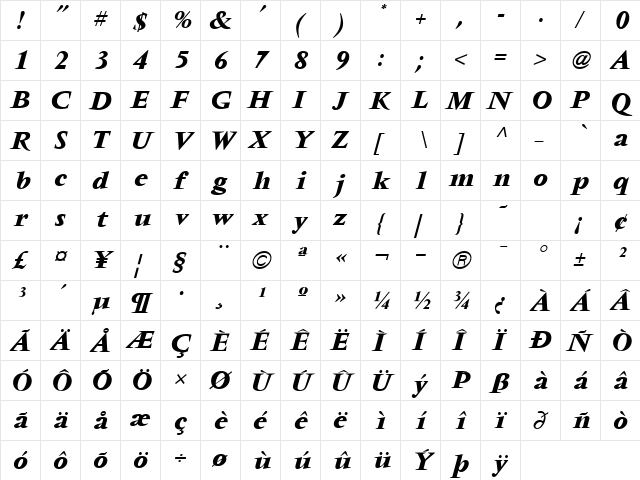
Vendome ICG BoldItalic
Design Context for Vendome ICG Typeface
Vendome ICG offers clean, dependable letterforms without strong stylistic allegiance, making it a practical choice for designers who need flexibility. The slanted form adds forward momentum and visual energy. Its bold stroke weight gives it real presence on the page.